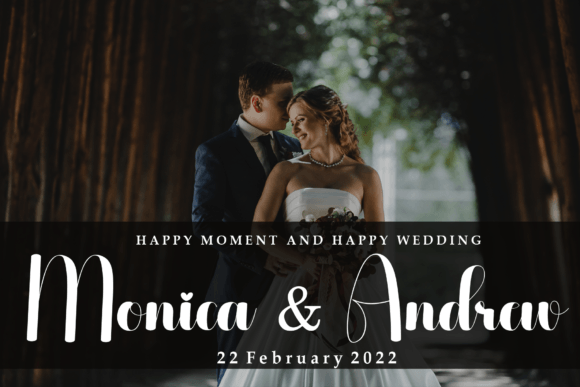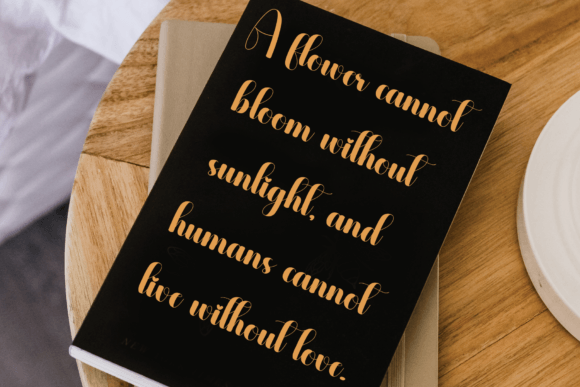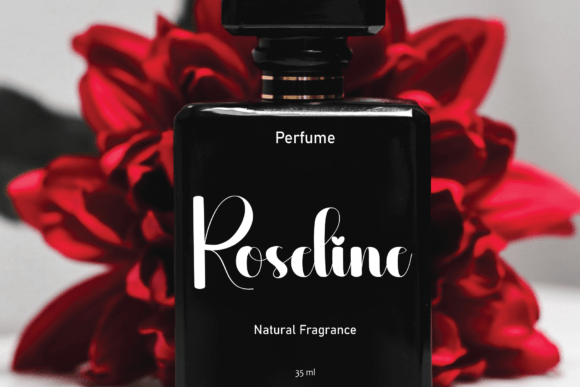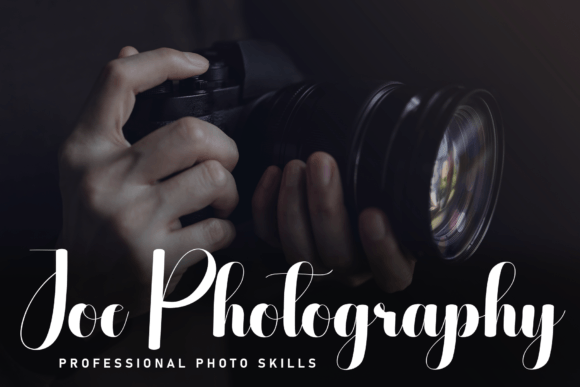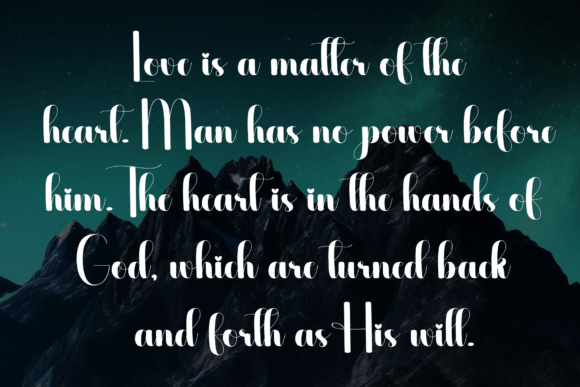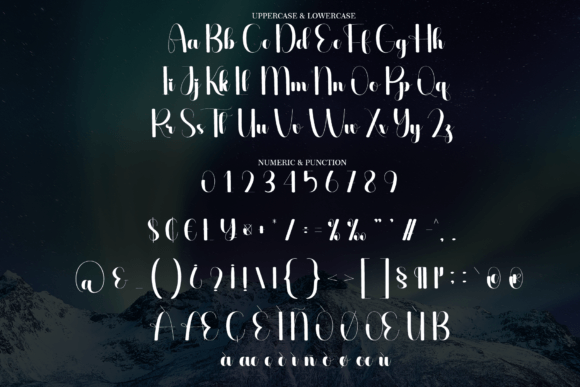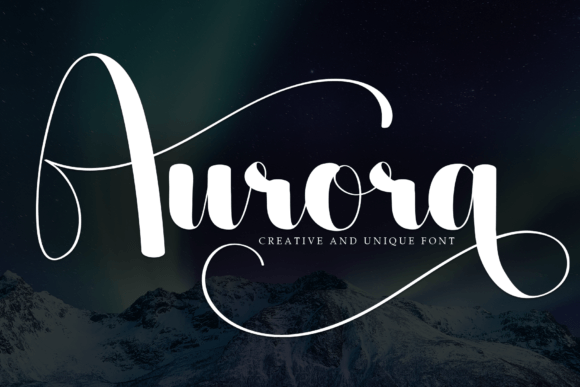
Aurora Font: The Sweet and Friendly Handwritten Font for Your Creative Projects
Are you a designer or crafter looking for a font that can add a lovely touch to your creative projects? Look no further than Aurora Font, a sweet and friendly handwritten font that’s perfect for a variety of applications. In this article, we’ll take a closer look at Aurora Font, its features, and how you can use it to elevate your designs.
What is Aurora Font?
Aurora Font is a beautiful, handwritten font that’s fresh and casual. It’s designed to bring a touch of warmth and personality to your designs, making it ideal for projects that require a more personal and approachable feel. Whether you’re creating wedding invitations, greeting cards, or other designs that need a lovely touch, Aurora Font is the perfect choice.
Key Features of Aurora Font
Aurora Font has several key features that make it a great choice for designers and crafters. Some of its notable features include:
- Sweet and Friendly Design: Aurora Font has a sweet and friendly design that’s perfect for creating designs that require a personal touch.
- Handwritten Style: The font has a beautiful, handwritten style that’s fresh and casual.
- Easy to Read: Aurora Font is easy to read, making it perfect for body text and other applications where readability is important.
- Versatile: The font is versatile and can be used for a variety of projects, from wedding invitations to greeting cards and more.
Uses for Aurora Font
Aurora Font is a versatile font that can be used for a variety of projects. Some of the most popular uses for the font include:
- Wedding Invitations: Aurora Font is perfect for creating beautiful wedding invitations that set the tone for a romantic and memorable event.
- Greeting Cards: The font is also great for creating greeting cards for special occasions, such as birthdays, anniversaries, and holidays.
- Social Media Graphics: Aurora Font can be used to create social media graphics that require a personal and approachable feel.
- Branding and Packaging: The font can also be used for branding and packaging projects that require a unique and memorable design.
Tips for Using Aurora Font
Here are some tips for using Aurora Font in your designs:
- Pair it with Other Fonts: Aurora Font can be paired with other fonts to create a unique and interesting design.
- Experiment with Colors: The font looks great in a variety of colors, so don’t be afraid to experiment and find the perfect color for your design.
- Use it for Headings and Body Text: Aurora Font can be used for both headings and body text, making it a great choice for a variety of projects.
Aurora Font is a beautiful, handwritten font that’s perfect for designers and crafters who want to add a lovely touch to their creative projects. With its sweet and friendly design, fresh and casual style, and versatility, Aurora Font is a great choice for a variety of applications. Whether you’re creating wedding invitations, greeting cards, or other designs that require a personal and approachable feel, Aurora Font is the perfect choice.